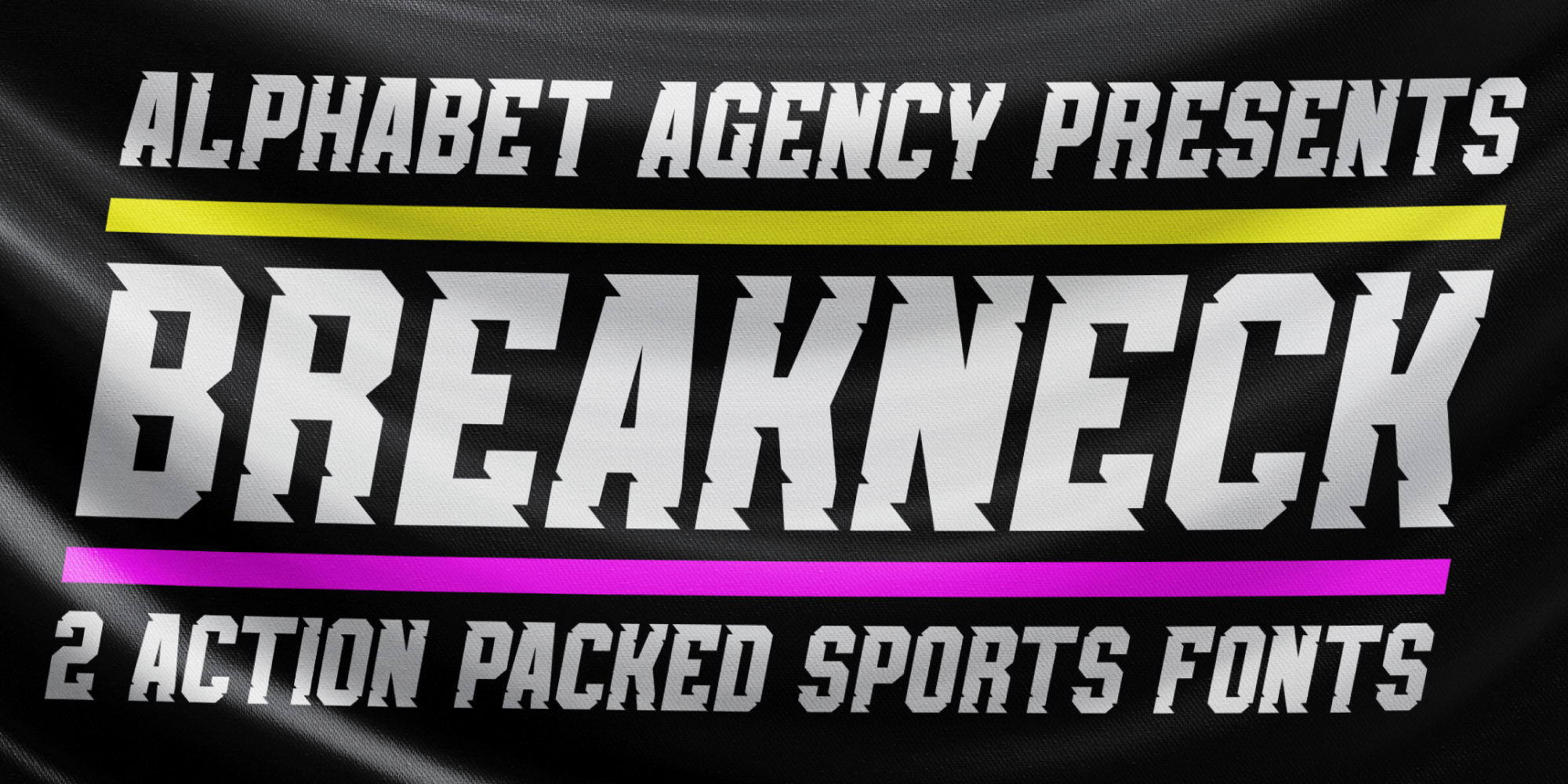
Breakneck Font is perfect for extreme sports branding, action movie titles, adrenaline-fueled advertising, motorcycle racing graphics, high-speed gaming interfaces, adventure tourism campaigns, energy drink packaging, action sports events, thrill-seeking entertainment, and fast-paced promotional materials.
Breakneck Font is exciting because it embodies pure velocity and kinetic energy with dynamic letterforms that appear to be moving at breakneck speed, creating an instant sense of urgency and excitement that perfectly captures the spirit of high-octane activities and adrenaline-pumping experiences.
The Breakneck Font family includes regular and bold weights with speed-inspired alternates, motion blur effects, and racing-themed decorative elements, providing designers with powerful tools for creating typography that literally accelerates off the page with unstoppable momentum.
When your project demands maximum velocity and heart-pounding impact, Breakneck Font Free Download delivers typography that refuses to slow down. This high-octane display typeface combines extreme sports aesthetics with professional craftsmanship, ensuring your designs capture the thrill of speed while maintaining readability in fast-moving applications. The dynamic letterforms and kinetic energy make this font an essential choice for action brands, extreme sports companies, and any application where speed, danger, and adrenaline are crucial for connecting with audiences who crave intensity and live life in the fast lane, pushing boundaries and breaking limits.